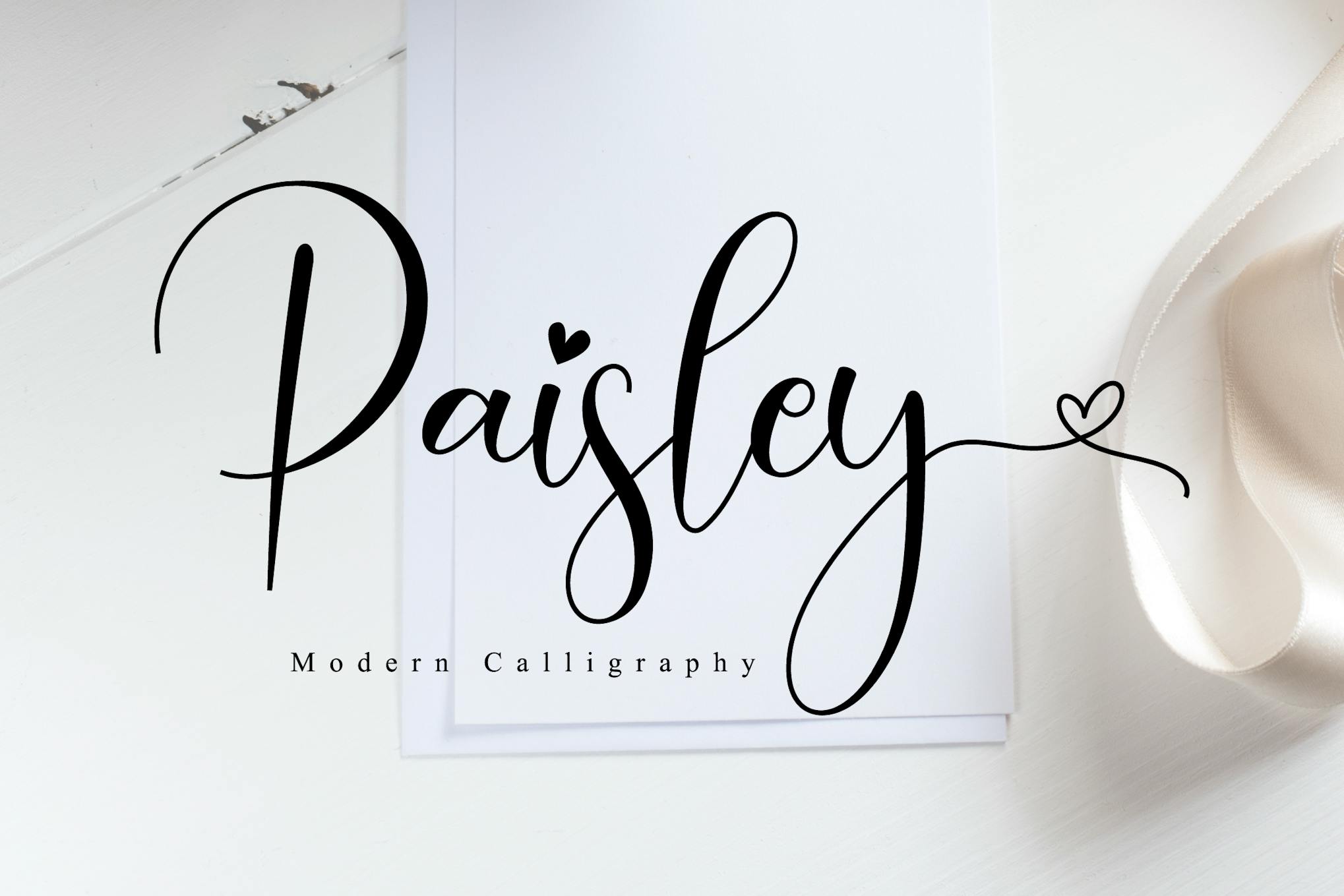
Paisley - Wedding Font
The Paisley - Wedding Font excels in bohemian design applications including artistic wedding invitations, bohemian bridal branding, creative ceremony logos, artistic product packaging, bohemian business cards, creative portfolios, artistic greeting cards, bohemian social media graphics, creative event signage, and artistic marketing materials. Its bohemian script style makes it perfect for projects requiring artistic elegance that communicates creativity and establishes bohemian brand positioning with audiences seeking artistic wedding experiences and bohemian sophistication.
What makes the Paisley - Wedding Font genuinely exciting is its exceptional ability to capture the artistic beauty and bohemian elegance of creative weddings through artistically crafted letterforms. The font features flowing, paisley-inspired strokes with artistic flourishes and bohemian proportions that create a distinctly creative appearance. Each character displays remarkable attention to artistic detail with bohemian curves, creative connections, and artistic spacing that give text a beautifully bohemian, hand-lettered quality. The font's artistic character and bohemian rhythm create an atmosphere of creative elegance while maintaining artistic sophistication and wedding authenticity.
The Paisley - Wedding Font family typically includes regular weight with extensive character coverage, featuring uppercase and lowercase letters, numerals, punctuation marks, and international characters. The typeface often incorporates stylistic alternates, contextual ligatures, and bohemian swashes that enhance its signature artistry. These additional elements provide designers with creative flexibility to customize text appearance and achieve more natural-looking artistic handwriting that reflects the font's bohemian and creative character.
This artistic signature font distinguishes itself through its remarkable balance of bohemian charm and sophisticated elegance. Unlike conventional or traditional fonts that lack artistic appeal, Paisley - Wedding Font embraces the power of creative design to create artistic connections with bohemian wedding audiences. The font's creative character makes it essential for artistic wedding planners, bohemian brands, and creative celebration businesses where creating artistic wedding experiences and bohemian memories is fundamental to success in creative wedding markets.